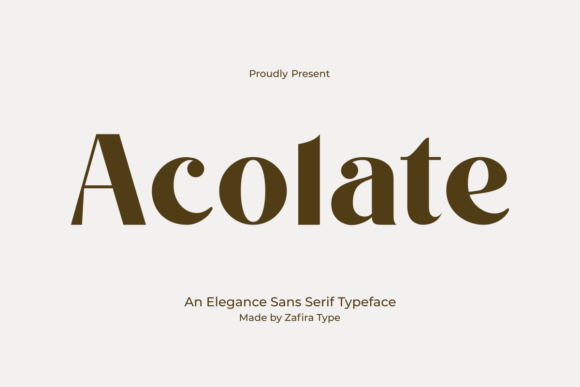
Acolate Font: Elevate Your Design to Superior Standards
In the realm of typography, a font can make or break the visual appeal of a design. With the vast array of typefaces available, finding the perfect one that embodies both style and functionality can be a daunting task. However, if you’re looking for a refined, contemporary sans-serif typeface that can bring your design ideas to life, look no further than Acolate Font. In this article, we’ll delve into the world of Acolate, exploring its features, benefits, and applications, and why it’s the perfect gateway to stunning aesthetics.
Introducing Acolate: A Refined, Contemporary Sans-Serif Typeface
Acolate is a meticulously crafted sans-serif typeface that exudes a harmonious mix of crisp lines and subtle curves. Designed with precision and an eye for detail, Acolate offers a stylish allure that can instantly elevate your design work. Whether you’re a graphic designer, a marketer, or a business owner, Acolate provides a versatile solution for diverse design needs. From logos to promotional content, this font is engineered to deliver exceptional results.
The Design Philosophy Behind Acolate
The design philosophy behind Acolate is centered around balance and harmony. The creators of Acolate aimed to craft a typeface that not only looks visually stunning but also communicates effectively. By combining crisp lines with subtle curves, Acolate achieves a perfect balance between modernity and readability. This balance makes Acolate an excellent choice for a wide range of applications, from digital media to print materials.
Key Features of Acolate Font
- Contemporary Design: Acolate boasts a modern sans-serif design that fits perfectly into today’s design trends.
- Precision Crafted: Every detail in Acolate has been meticulously crafted to ensure a high level of readability and aesthetic appeal.
- Versatility: Acolate is versatile and can be used for various design projects, including logos, promotional materials, websites, and more.
- Balanced Visuals: The font strikes a perfect balance between crisp lines and subtle curves, making it both stylish and readable.
Applications of Acolate Font
Acolate’s versatility makes it suitable for a wide range of design applications. Here are some of the areas where Acolate can make a significant impact:
- Logo Design: Acolate’s unique and stylish design makes it an excellent choice for logos that need to stand out.
- Promotional Content: Whether it’s brochures, flyers, or posters, Acolate can add a touch of sophistication to your promotional materials.
- Digital Media: Acolate is optimized for digital use, making it perfect for websites, social media graphics, and email newsletters.
- Print Materials: From business cards to billboards, Acolate’s clear and readable design ensures your message is communicated effectively.
Benefits of Using Acolate Font
Using Acolate Font in your design projects comes with numerous benefits. Here are some of the key advantages:
- Enhanced Visual Appeal: Acolate’s stylish design can instantly elevate the visual appeal of your design work.
- Improved Readability: The balanced design of Acolate ensures that your message is communicated clearly and effectively.
- Versatility: Acolate’s versatility means you can use it across various design projects, saving you time and resources.
- Professionalism: Acolate’s refined design gives your work a professional edge, helping you to build credibility with your audience.
How to Use Acolate Font Effectively
To get the most out of Acolate Font, here are some tips on how to use it effectively:
- Pair with Complementary Fonts: Acolate can be paired with other fonts to create a unique visual hierarchy.
- Adjust Font Sizes: Experiment with different font sizes to emphasize key messages and create visual interest.
- Utilize Font Weights: Acolate comes in various font weights. Use them to add depth and contrast to your design.
- Consider Color Schemes: Choose color schemes that complement Acolate’s design and enhance its visual appeal.
In conclusion, Acolate Font is a powerful tool for designers and businesses looking to elevate their design work to superior standards. With its refined, contemporary sans-serif design, Acolate offers a stylish allure that can bring your design ideas to life. Its versatility, readability, and aesthetic appeal make it an excellent choice for a wide range of design applications. Experience the charm and power of Acolate, your gateway to stunning aesthetics.
FAQs About Acolate Font
- What is Acolate Font?
- Acolate Font is a refined, contemporary sans-serif typeface designed for a wide range of design applications.
- Is Acolate suitable for digital use?
- Yes, Acolate is optimized for digital use and can be used for websites, social media graphics, and email newsletters.
- Can I use Acolate for print materials?
- Absolutely. Acolate’s clear and readable design makes it suitable for various print materials, including business cards, brochures, and billboards.
- Is Acolate easy to read?
- Yes, Acolate’s balanced design ensures that it is both stylish and readable, making it easy to communicate your message effectively.